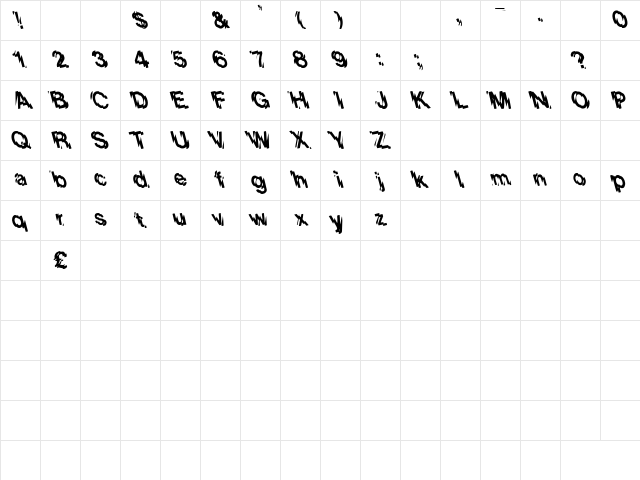
Lower West Side Left Regular
Complete Lower West Side Left Regular glyph index. Displaying only characters natively supported by Lower West Side Left Regular font.
Design Context for Lower West Side Left
Lower West Side Left is a composed and adaptable typeface that performs quietly and consistently across a wide range of design contexts.